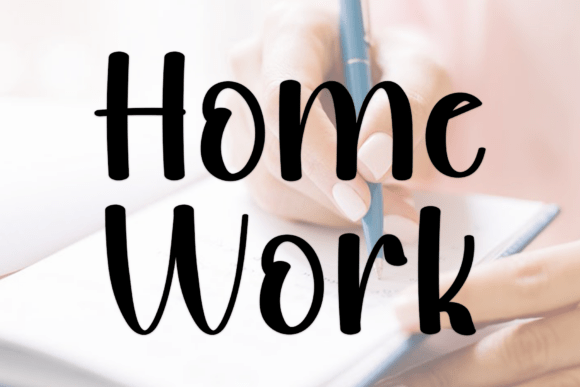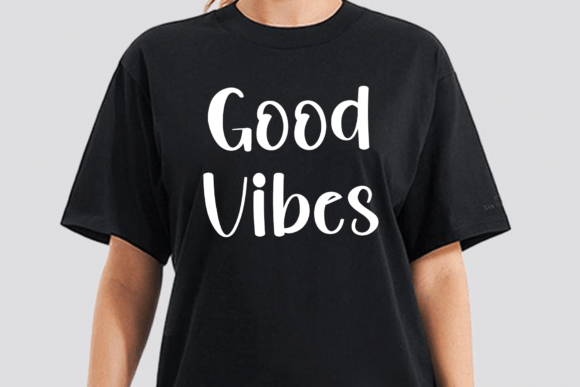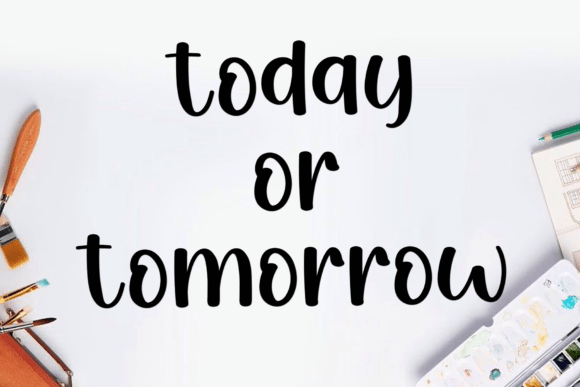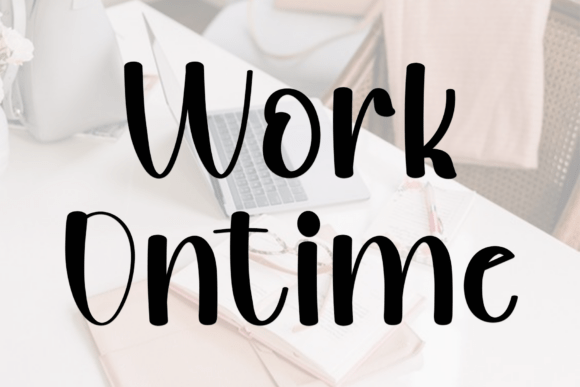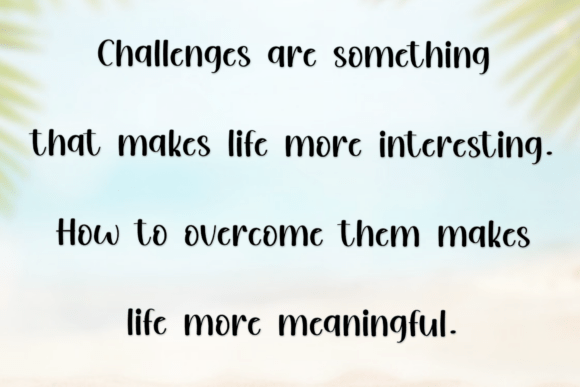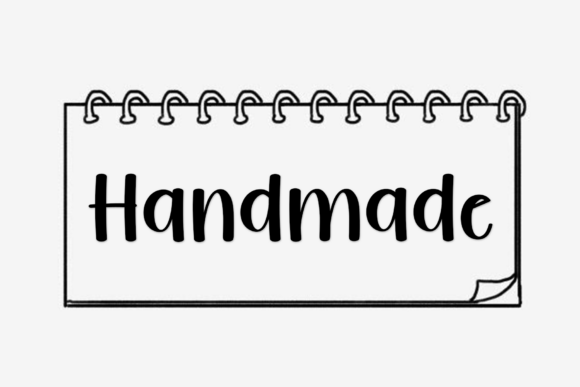
Unleash Your Creativity with the Sweet Charm of Honey Holiday Font
Have you ever stared at a blank page, waiting for inspiration to strike, only to have a spark of creativity ignite the moment you see a beautiful font? That’s exactly what happened to me when I stumbled upon the Honey Holiday Font. Its soft, unique strokes and distinctive character immediately caught my attention, and I knew I had to learn more about it.
The Honey Holiday Font is a versatile and beautiful typeface designed to add a touch of personality to your designs. With its compatibility across various applications, including Windows and open-source platforms, this natural font style is perfect for a wide range of projects, from crafts to design works. Whether you’re a seasoned designer or a creative enthusiast, the Honey Holiday Font is a valuable addition to your toolkit, guaranteed to elevate your designs and captivate your audience.
Honey Holiday Font Key Features
- Font Family: Honey Holiday Font is a unique, hand-drawn font designed for festive and holiday-themed projects.
- Unique Characteristics: Features a whimsical, hand-painted style with intricate details and ornaments, perfect for adding a touch of warmth and personality to designs.
- Character Set: Includes a comprehensive set of characters, including uppercase and lowercase letters, numbers, punctuation marks, and special characters.
Honey Holiday Font Review
I’ve had the chance to work with the Honey Holiday font, and I must say it’s a unique and charming addition to any design project. ✨ Its playful, handwritten feel makes it perfect for creative and whimsical projects, such as invitation designs, social media graphics, or children’s books.
Here are some of the things that work well with this font:
- Expressive and dynamic feel that adds personality to any design
- Works well for titles and headings, thanks to its bold and playful style
- Perfect for projects that require a touch of warmth and friendliness
- May not be the best choice for professional or formal projects, as its casual feel can come across as unpolished
- Some letters may be difficult to read, especially at smaller font sizes
- Not ideal for projects that require a lot of text, as its playful feel can become overwhelming
Overall, I think the Honey Holiday font is a great addition to any designer’s toolkit. While it may not be suitable for every project, it’s perfect for those that require a touch of whimsy and personality. With its unique feel and expressive style, it’s sure to add a special something to any design.
The Honey Holiday Font is perfect for creating festive and playful designs, such as:
- Christmas and holiday cards
- Party invitations and flyers
- Wedding invitations and decorations
- Summer and seasonal promotions
Remember to experiment with different font sizes, colors, and styles to get the most out of the Honey Holiday Font.